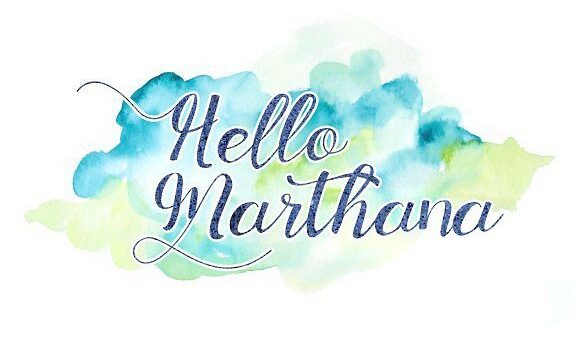
Marthana Font – Free Download Introduction to Marthana Font Marthana is an extremely gorgeous, flourished font; this font is a great calligraphy option for a wide range of romantic and special occasion designs. 📸 Preview Gallery 6 images 📌 Product